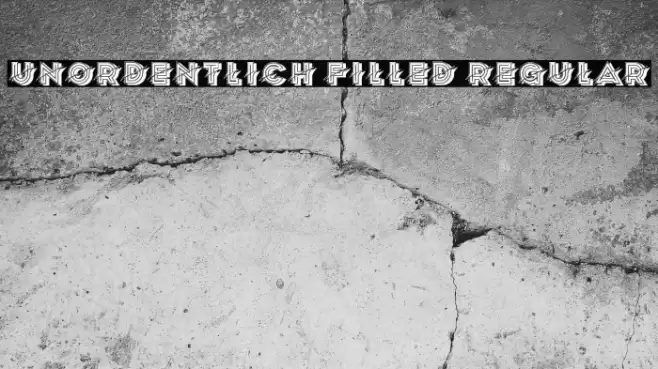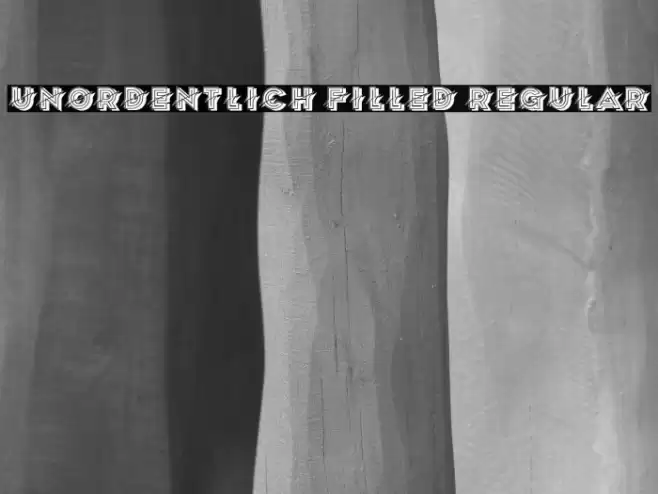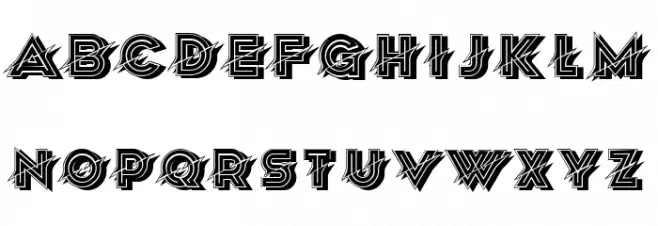
Unordentlich Filled Regular Font
Unordentlich Filled Regular Description
This font features a bold and dynamic design with a filled, layered appearance that creates a sense of depth and movement. The letters are constructed with overlapping lines and geometric shapes, giving them a unique, almost chaotic aesthetic. The style is eye-catching and modern, making it suitable for projects that require a strong visual impact. The uppercase and lowercase letters maintain a consistent style, with sharp angles and a sense of energy that is both playful and assertive. The font's intricate design makes it ideal for creative and artistic applications.
A bold, dynamic font with a filled, layered design and geometric shapes from Uncategorized fonts.
- Proposed Projects: Ideal for posters, album covers, branding, and any project needing a bold visual statement.